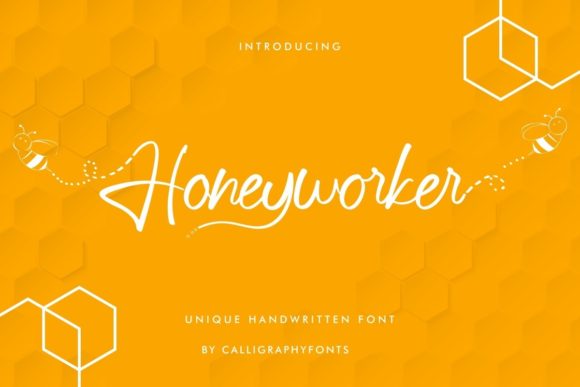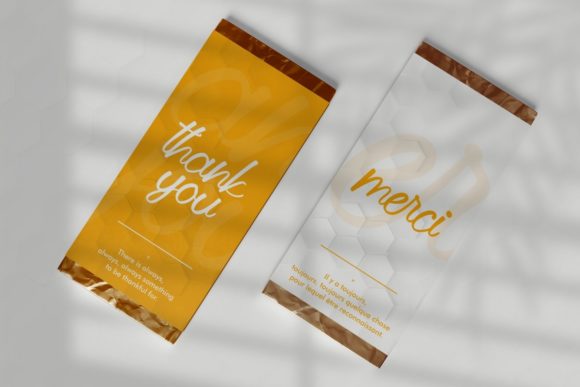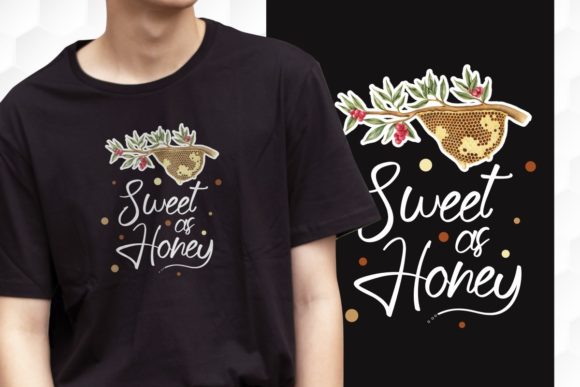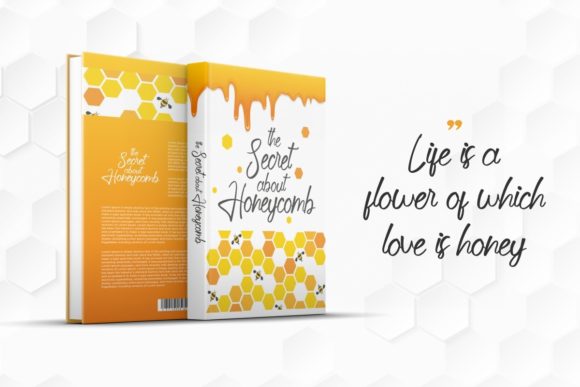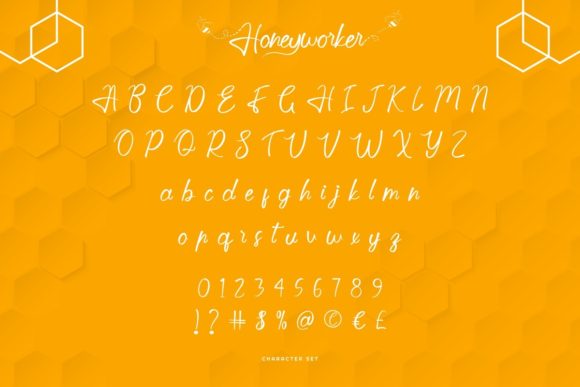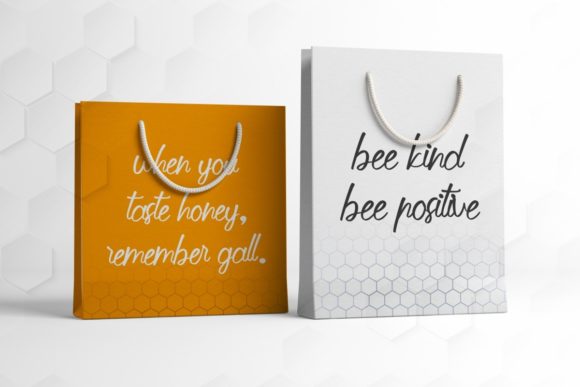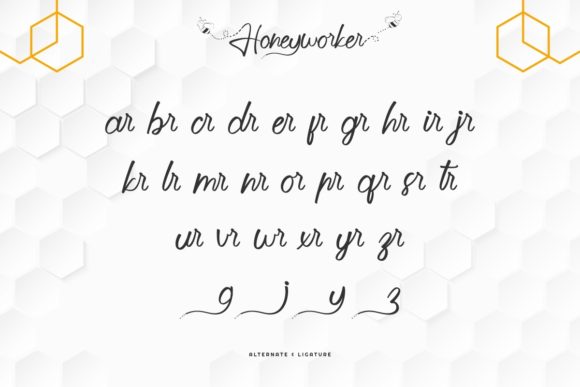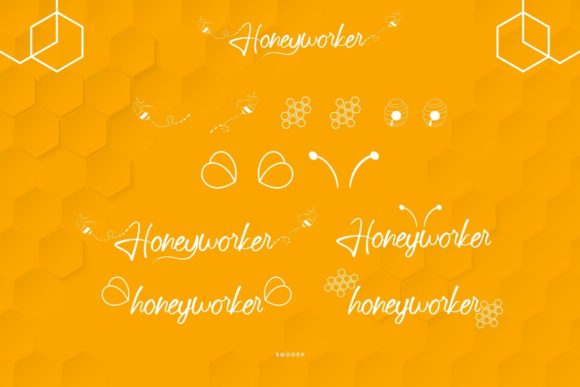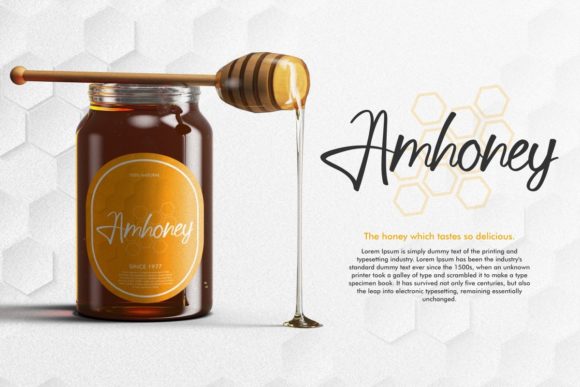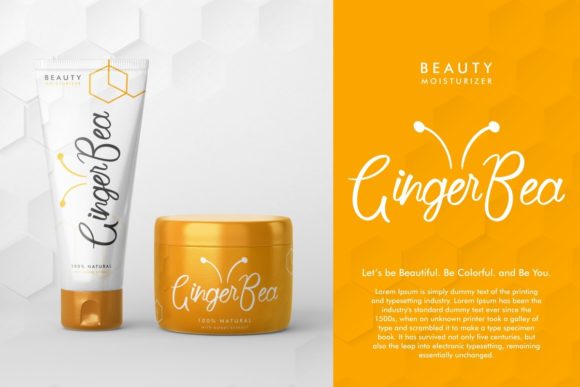
Honeyworker Font
About Honeyworker Font
Honeyworker is a sweet and cursive handwritten font. This gentle font will look gorgeous on a variety of design ideas. Honeyworker is PUA encoded which means you can access all of the glyphs and swashes with ease!